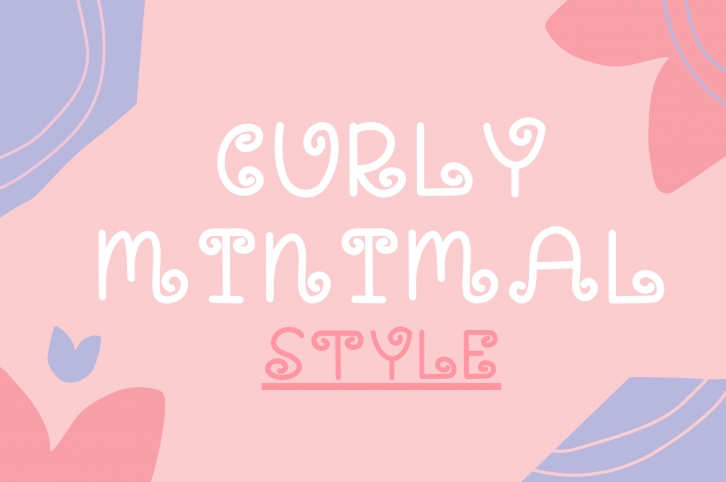
Curly Minimal Style is a whimsical and neat display font. It can easily be matched to an incredibly large set of projects, so add it to your creative ideas and notice how it makes them stand out!